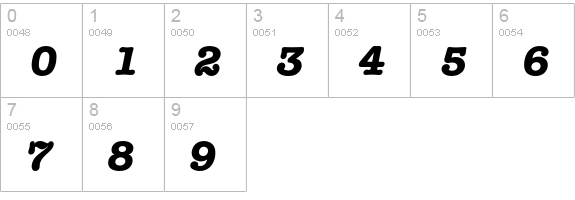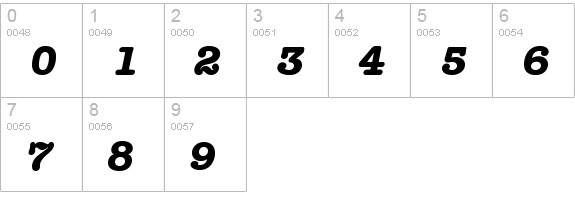
American Typewriter* Bold Italic Font Details
American Typewriter* Bold Italic is a strong, high-contrast, italic variant in the American typeface family \xE2\x80\x94 well suited to headlines, attention-grabbing titles, and strong calls-to-action.
American Typewriter* Bold Italic font is a classic and versatile typeface that exudes a sense of authority and professionalism. Its bold and italicized design adds a touch of sophistication to any project, making it perfect for documents, invitations, or branding materials. This font combines the timeless elegance of a typewriter font with a modern twist, making it both stylish and practical. The thick strokes and slanted italics create a strong visual impact, while the clean lines ensure readability in any setting. Whether you are looking to make a bold statement or add a touch of vintage charm to your designs, American Typewriter* Bold Italic font is the perfect choice. And the best part? It's free to download at FontsMarket.com, allowing you to access this high-quality font without breaking the bank. Download American Typewriter* Bold Italic font today and elevate your projects with its unique blend of style and functionality.